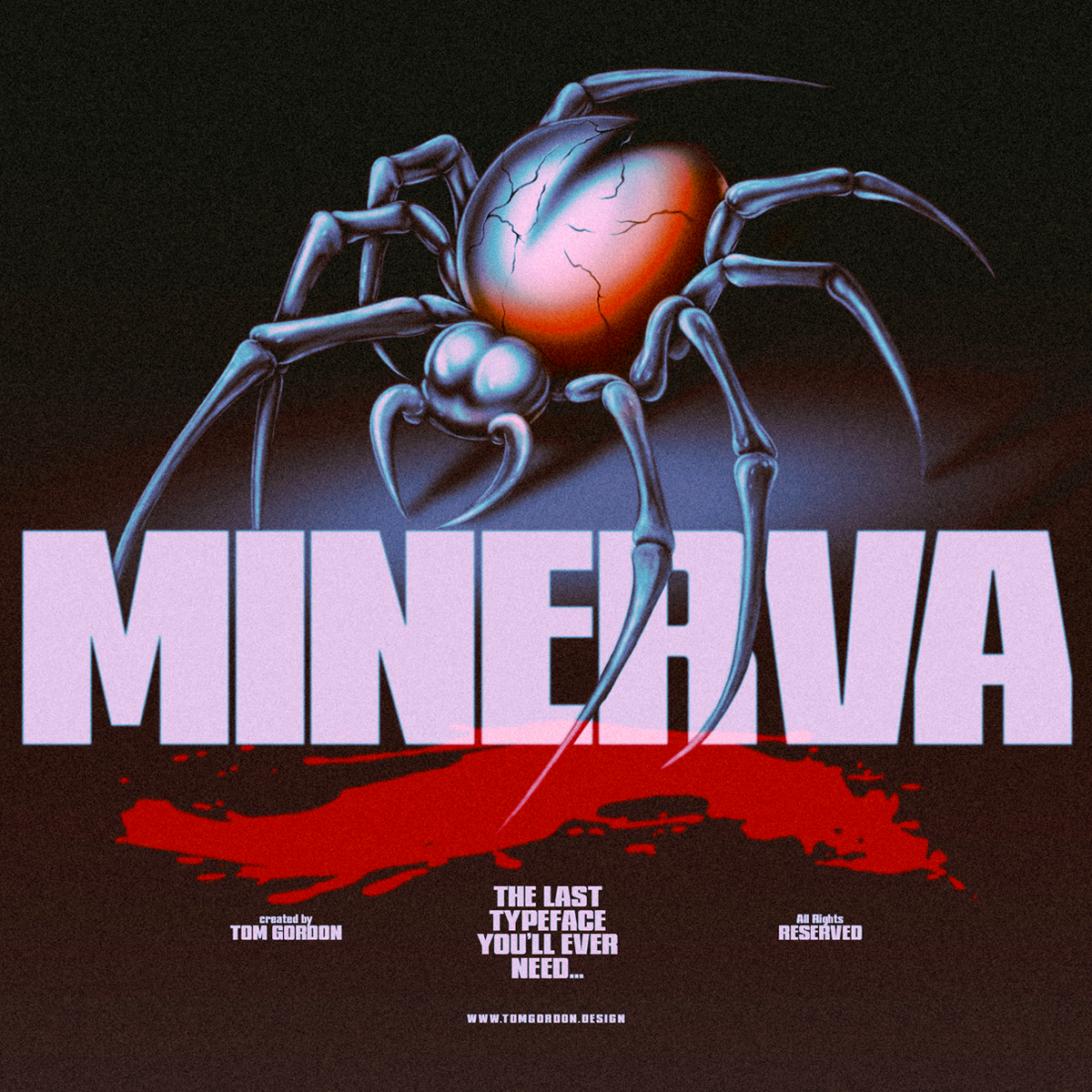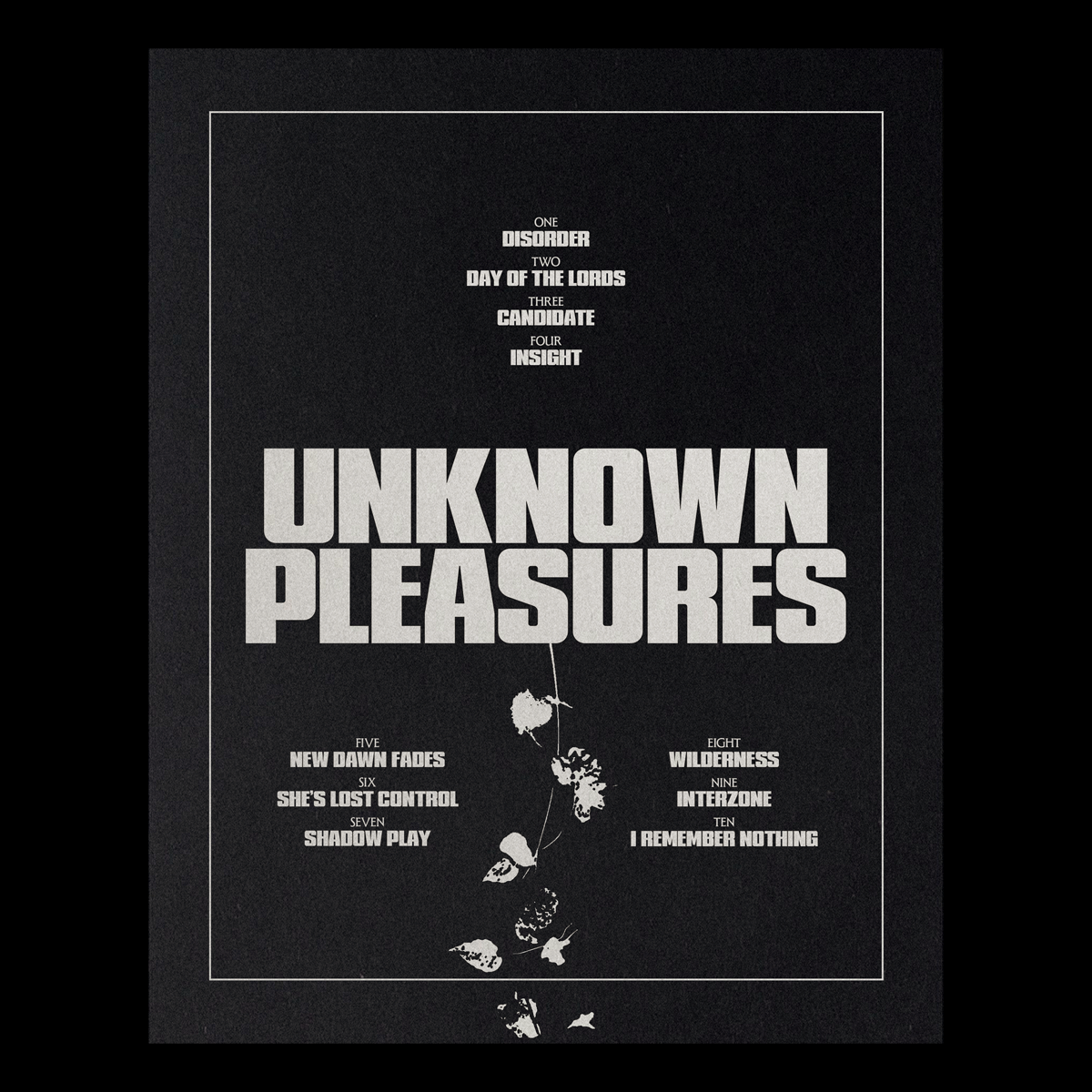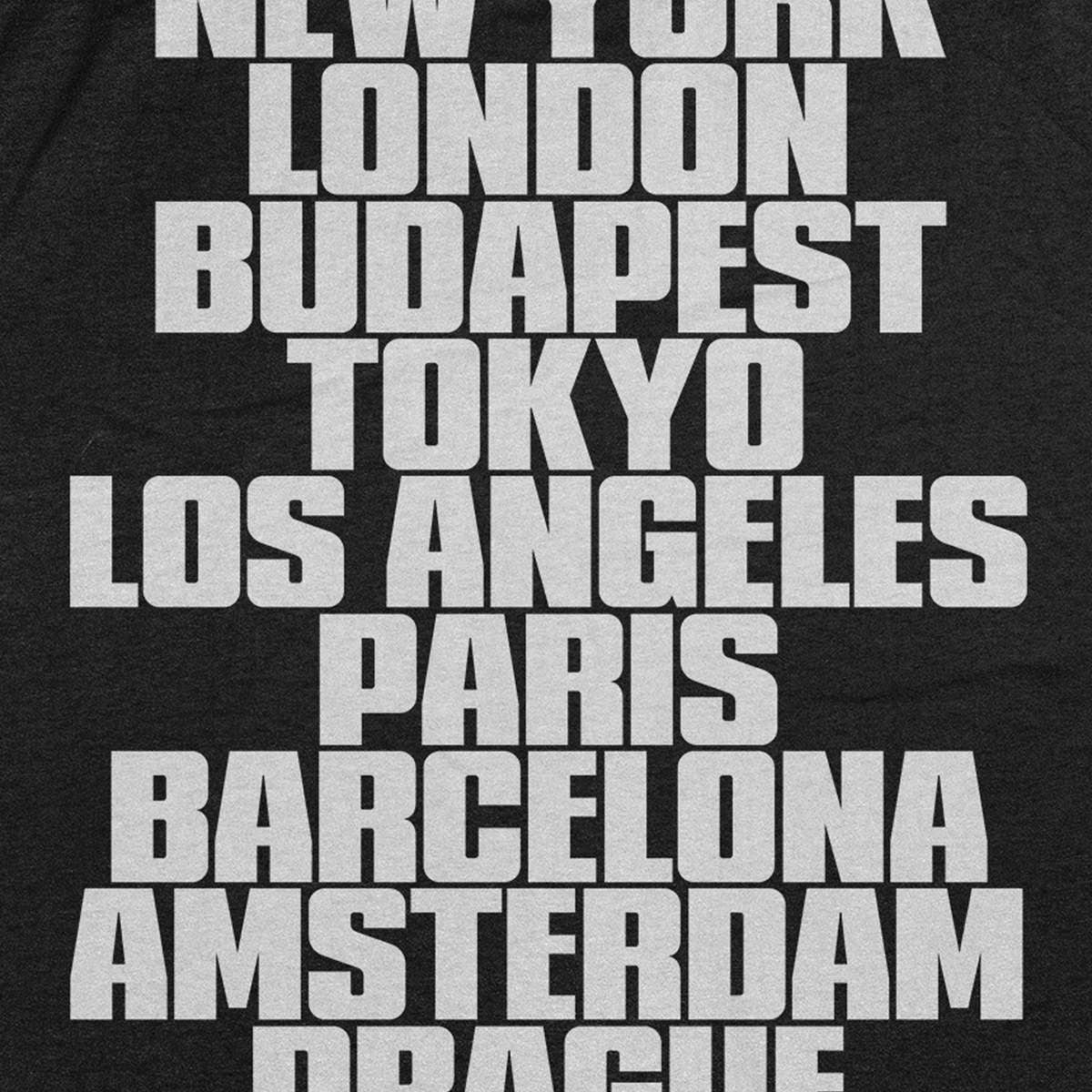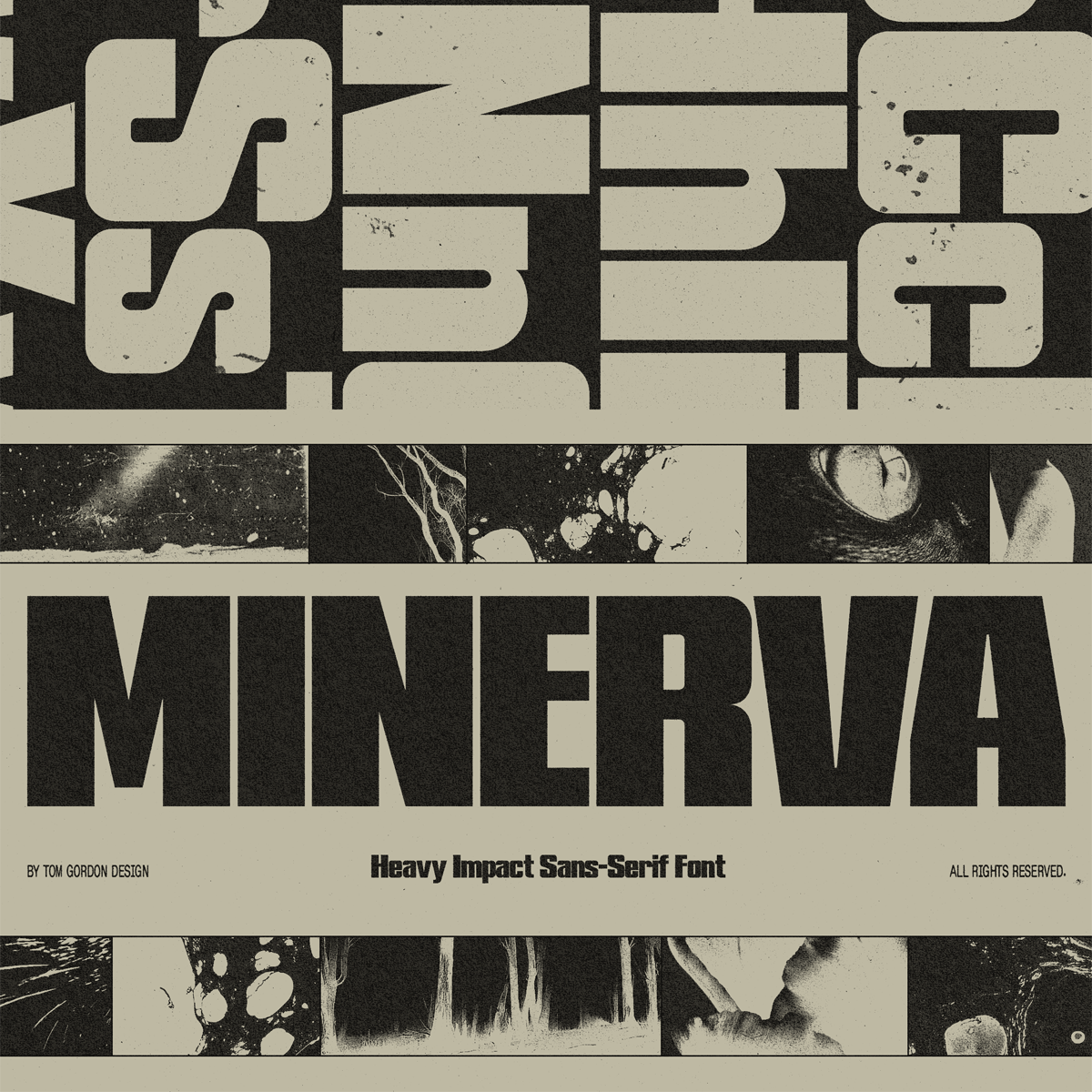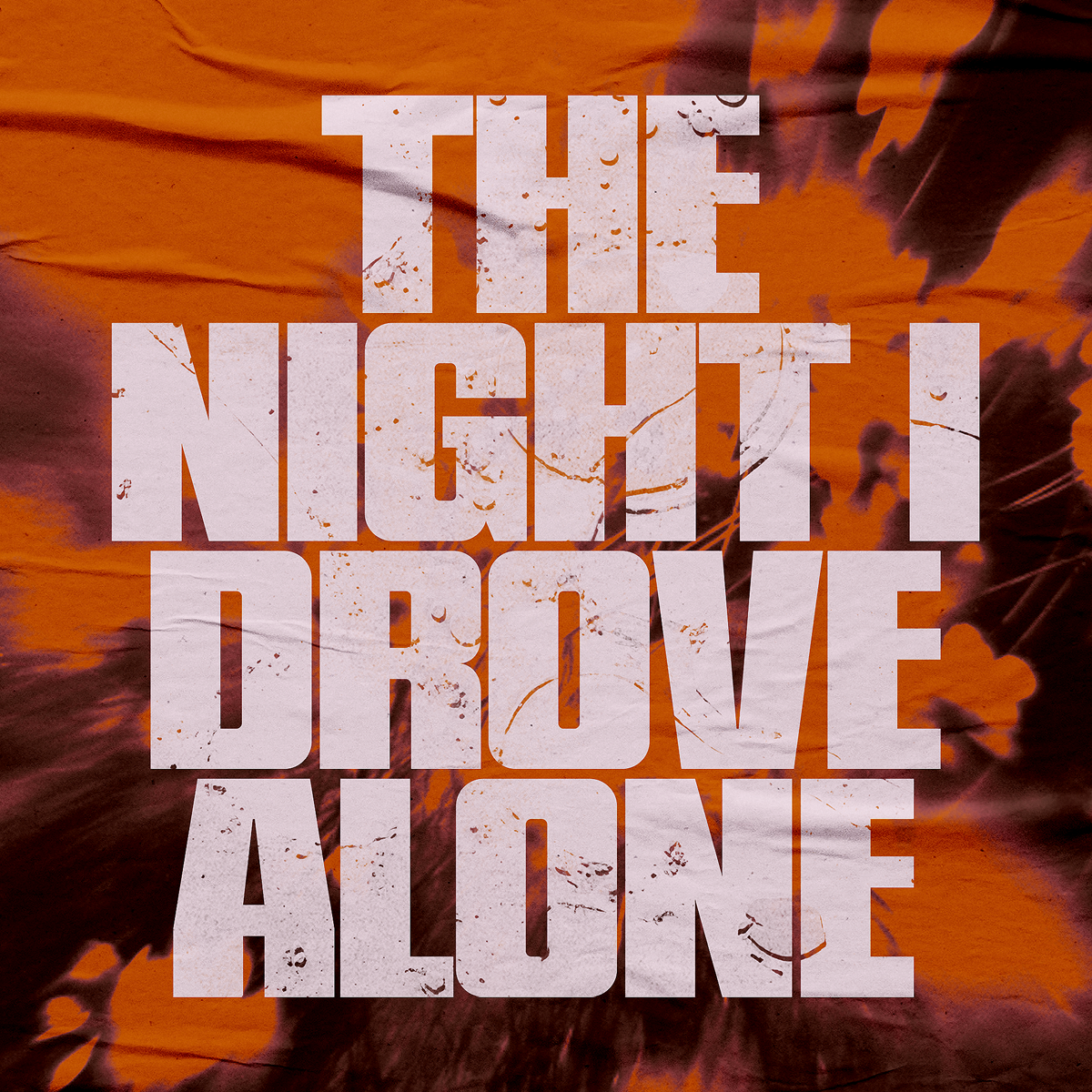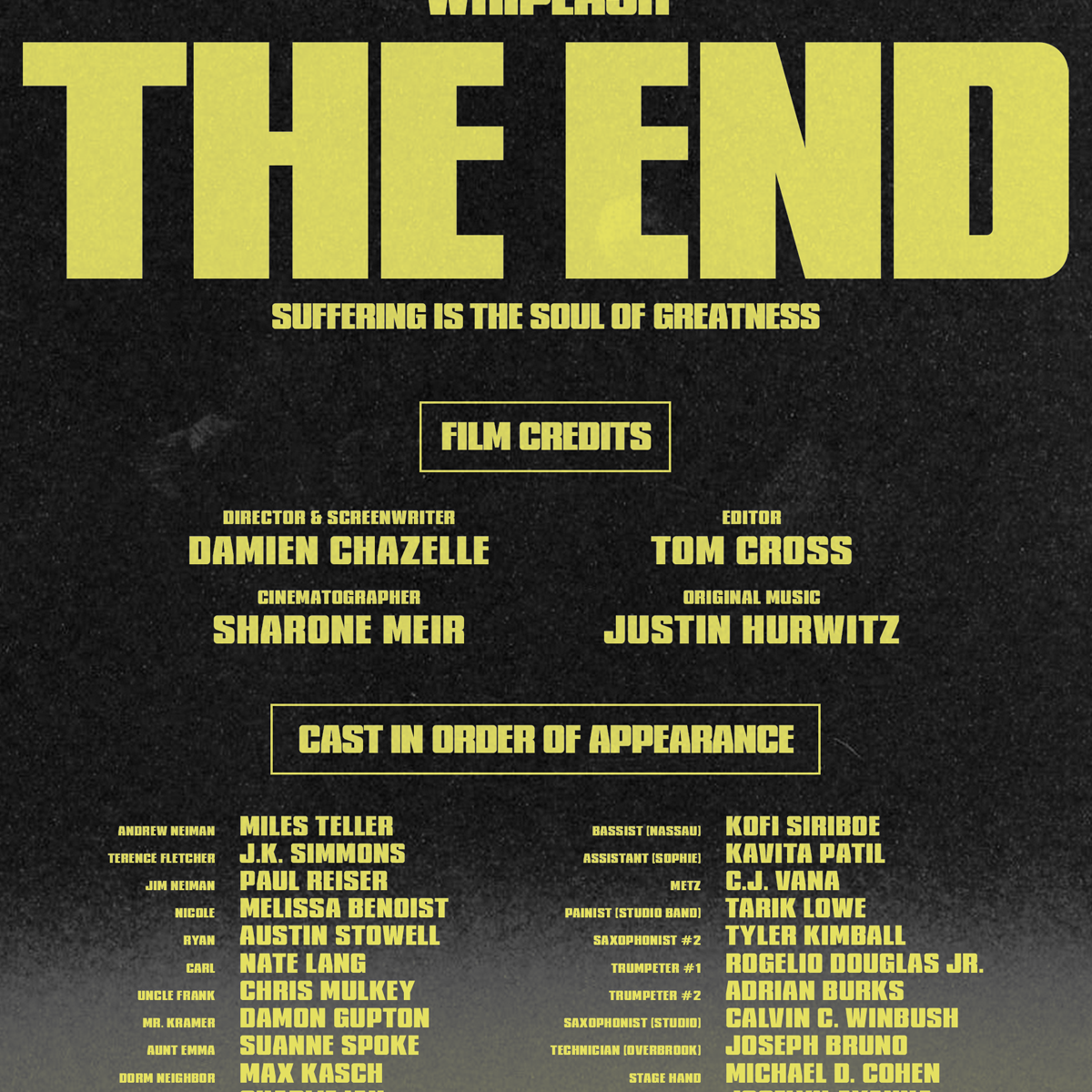
MINERVA is my Hard-hitting Sans Serif font that's designed to smack you in the face!
This Sans-Serif giant is my take on a heavy title font that works overtime to make your title copy stand out far above the noise. Designed with brutalist posters,
Full Uppercase & Lowercase Alphabet
Numbers and essential symbols